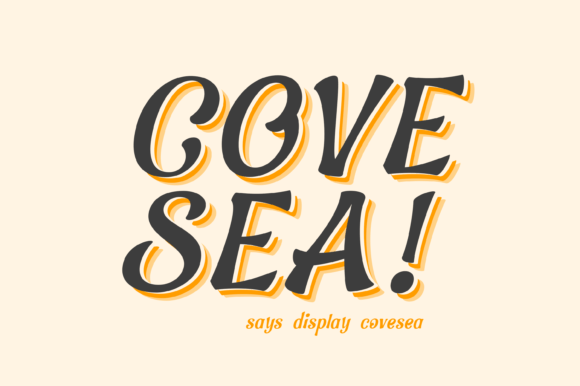
Journey to the Orient with the Covesea Font: A Stroke of Luck for Your Creative Ventures
In the realm of design, fonts hold the power to transform ordinary words into captivating expressions. Introducing the Covesea Font, a display font that embodies the exuberant spirit of the Chinese New Year.
This retro display font is the brainchild of Boy Moch Tomi, a renowned font designer. With its funky vibes, it's ready to infuse your designs with a sense of playfulness and energy. Each letterform is meticulously crafted with bold curves, reminiscent of the vibrant streets of the Orient.
Whether you're designing posters, album covers, or branding projects, Covesea is the perfect choice to add a touch of nostalgia and personality. Its unique style harkens back to a simpler time, evoking a sense of warmth and familiarity.
With Covesea, your designs will dance off the page, captivating audiences with its infectious rhythm. It's a font that breathes life into your words, adding an extra layer of depth and meaning to your creative endeavors.
Unlock your creativity and embrace the festive spirit of the Chinese New Year with the Covesea Font. Let your imagination run wild as you explore the endless possibilities it offers. The luck and fortune of the Orient await, ready to bestow their blessings upon your designs.